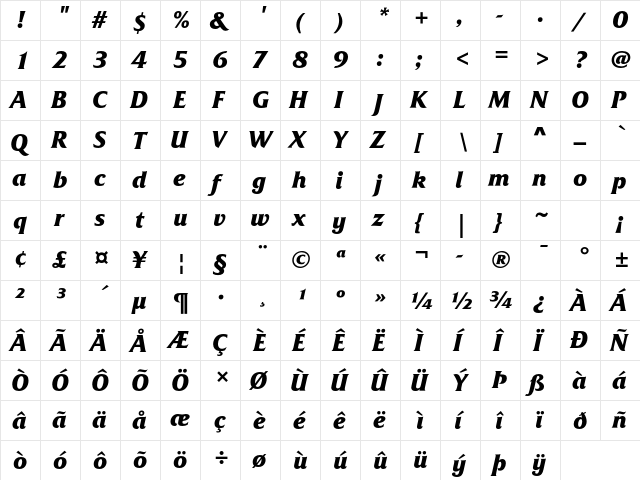
Friz Quadrata Std Bold Italic
| Designer | Ernst Friz |
Design Context for Friz Quadrata Std Typeface
Friz Quadrata Std offers clean, dependable letterforms without strong stylistic allegiance, making it a practical choice for designers who need flexibility. The slanted form adds forward momentum and visual energy. The heavy weight commands attention and anchors typographic hierarchies.
Pro Tip: Use Friz Quadrata Std for emphasis, pull quotes, and subheadings where its slanted energy can add rhythm to the layout.